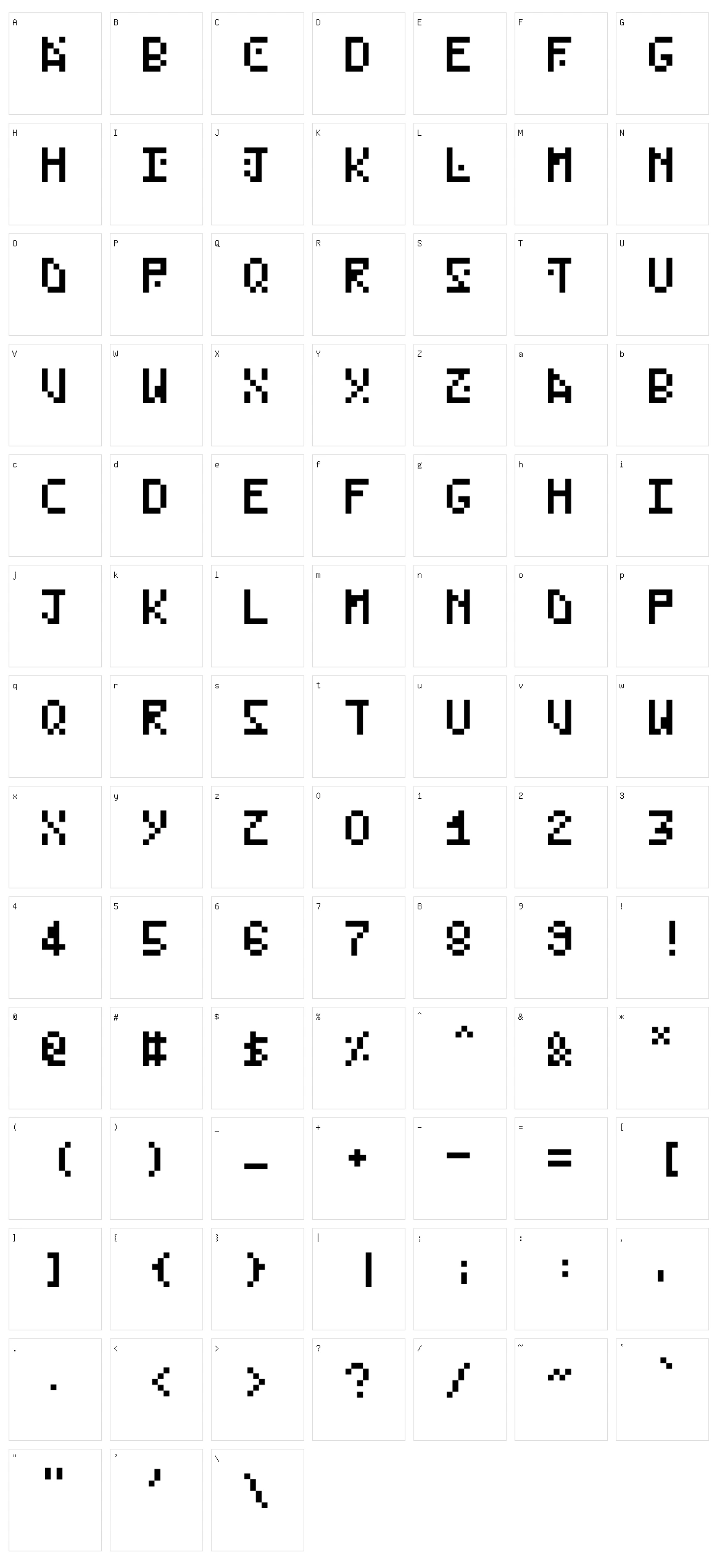
RetroBound
Designed by: Marianne
The first "RetroBound.ttf" contains the basic font with the lowercase letters.
The second "RetroBoundUC.ttf" contains the font with capital letters only, but the lowercase letters do not have the uppercase letters's decorations.
These did initially serve for a personal video game project, and I thought it could be used for other people for various uses! So i shared it.
Le premier "RetroBound.ttf" contient la police de caractère basique avec les lettres en minuscules.
La seconde "RetroBoundUC.ttf" contient la police de caractère avec uniquement des majuscules, mais les lettres minuscules ne comportent pas les décorations des lettres majuscules.
Cette police de caractère a au début servi pour un projet personnel de jeu vidéo, et je me suis dis qu'il pourrait servir à d'autres personnes pour diverses utilisations! Donc je l'ai partagé.